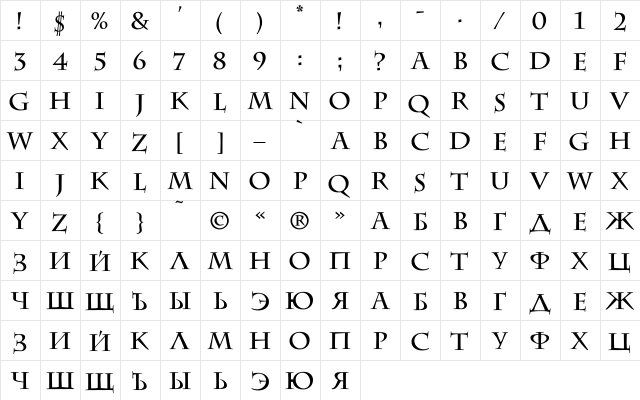
DS CenturyCapitals Regular
| Designer | Dubina Nikolay |
Design Context for DS CenturyCapitals Typeface
DS CenturyCapitals takes a measured approach to typography — its balanced proportions and neutral character make it a reliable workhorse for both digital and print work.